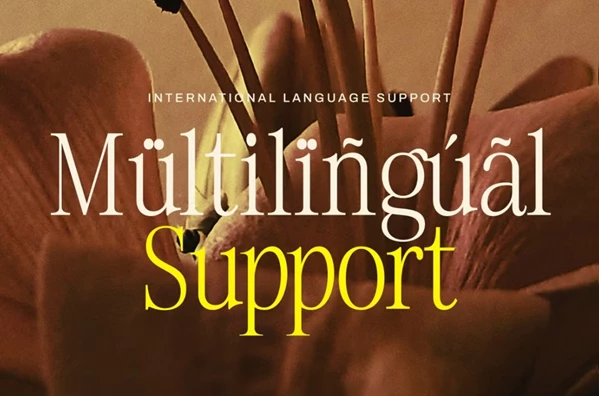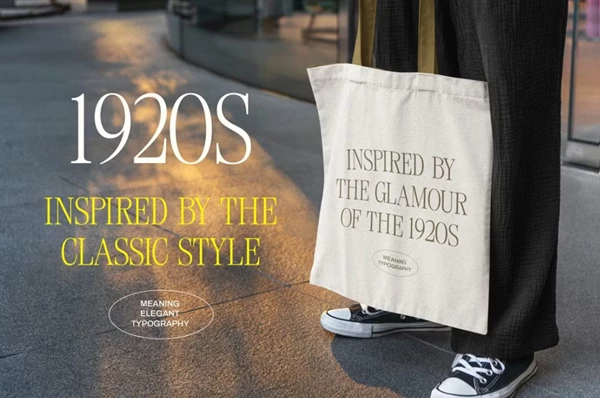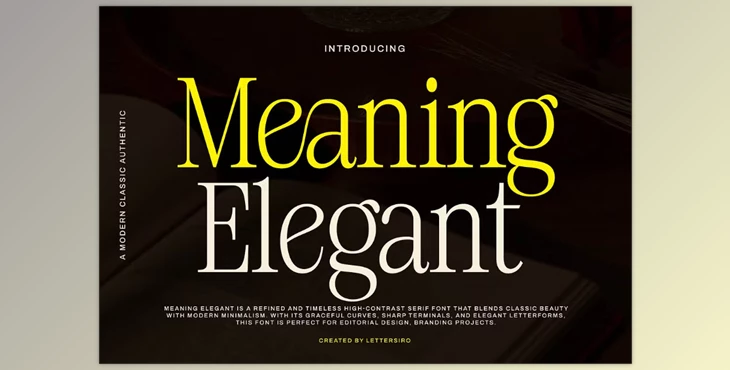
Meaning Elegant - Classic Serif Font:
Meaning Elegant is a serif font inspired by early 20th-century typography. Its character and contrast create an elegant personality that can be used for creative projects in need of a traditional, yet distinctive, touch. Meaning Elegant was made to reflect vintage editorial fonts while also providing the means necessary for modern-day functionality. Best used for logo designs, headlines, product packaging, and branding visuals, this font is the best way to add elegance and consistent legibility to any story, inside and out, with its complementary use in any lettering applications. Each letter will always be beautiful.
Some great features of Meaning Elegant - Classic Serif Font:
- Serif Style: Strong contrast. Elegant serifs.
- Stylish Characters: Inspired by 1920s typography.
- Complete Font Set: Uppercase, lowercase, numbers, punctuation, and symbols.
- OpenType: Ligatures included.
- Multilingual: Supports Western European languages.